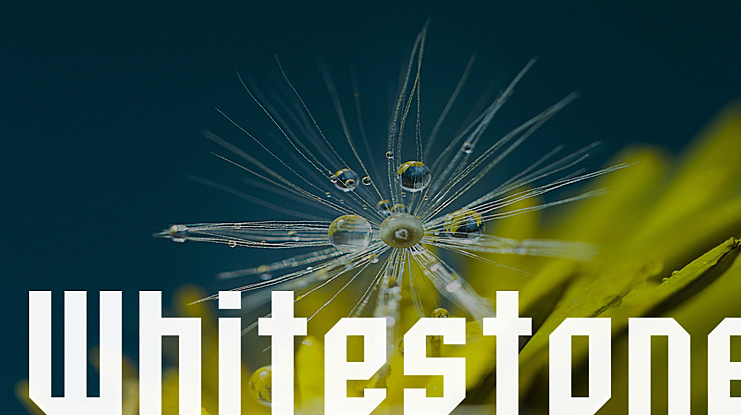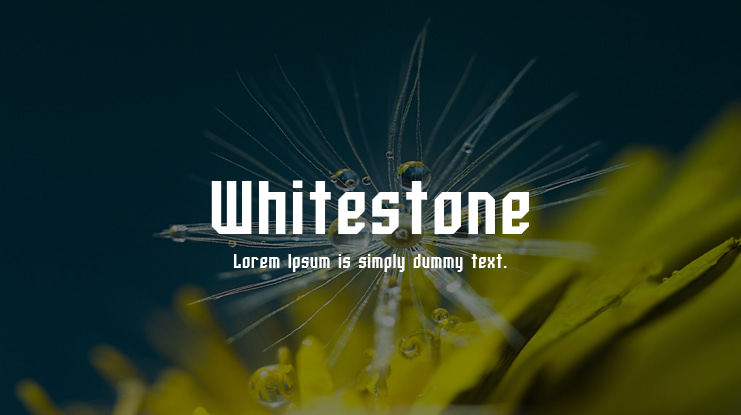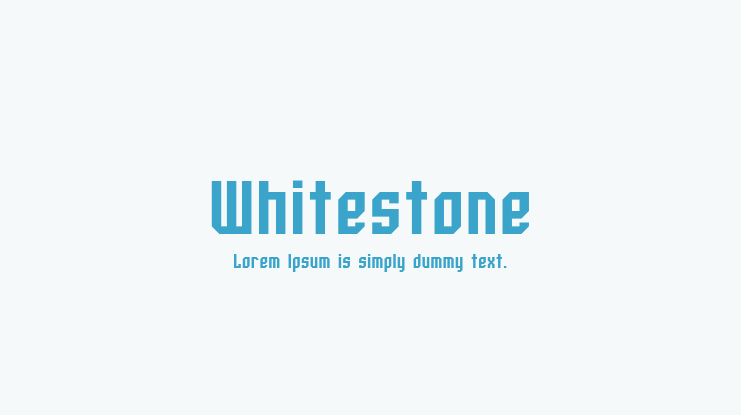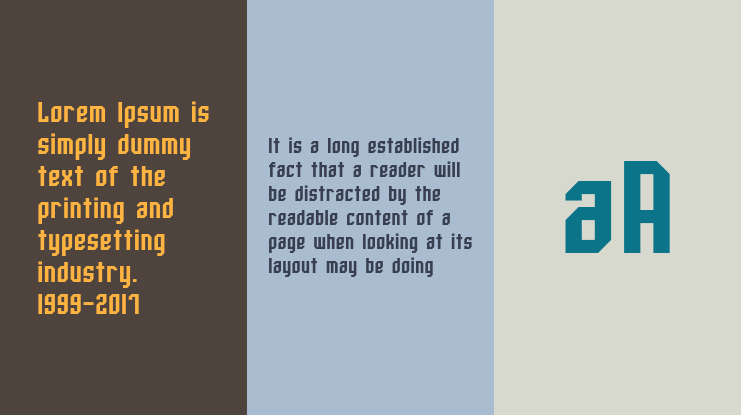
Whitestone Font Family
Neale Davidson
Whitestone is a basic, bold, blocky face designed with a very slight gothic feel. It was based heavily on simpler early English runic faces and resembles early simple block-lettering. Includes full alphabet, extended punctuation, euro. Includes regular bold, italic, and bold-italic faces.